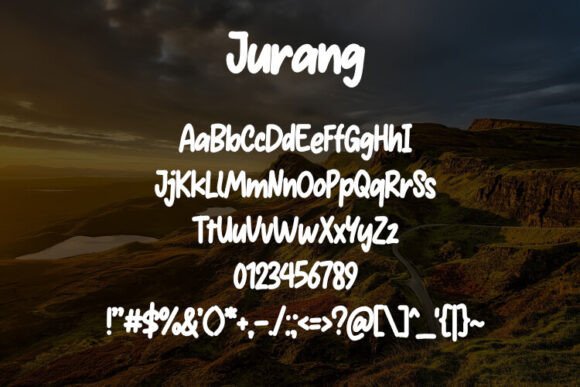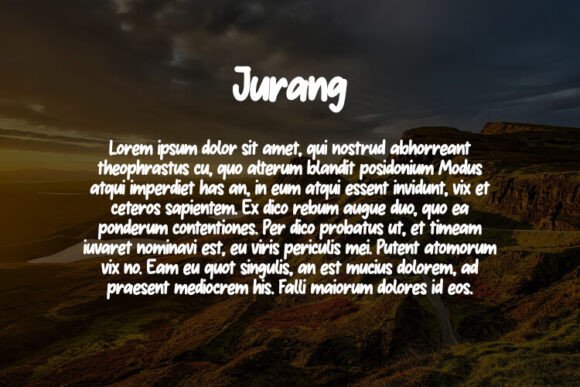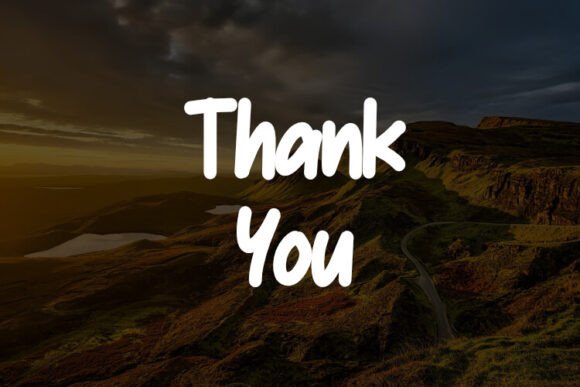
Introduction to Jurang Font
You’re staring at a blank design canvas, a blank slate waiting for your creativity to shine. The cursor blinks, taunting you to bring your vision to life. It’s moments like these that make us appreciate the right tools in our arsenal. That’s where “Jurang Font” comes in – a high-quality, adaptable typography that’s about to revolutionize your creative project.
This exceptional font is not just a pretty face; it’s a versatile design resource that effortlessly blends with any aesthetic, from modern to vintage. Whether you’re working on a t-shirt print or a logo, “Jurang Font” has got you covered. With its transparent background and seamless compatibility with various software, this font is a game-changer for designers. And the best part? It’s available for free download, making it an absolute must-have for any creative project.
So, why is “Jurang Font” so valuable for designers? It’s simple – this font embodies the pinnacle of design flexibility, making it the perfect addition to your design toolbox. With “Jurang Font,” you’ll be able to take your creative ventures to the next level, and that’s a promise we’re excited to keep.
Key Features of Jurang Font
- High-quality, unique font design perfect for creative projects
- Transparent background, allowing for easy layering and customization
- Designed to work well in various digital applications, including web design and print media
- Perfect for designers and artists looking for a distinctive, high-quality font for their creative projects
Honest Review: Jurang Font
I recently had the chance to work with the Jurang Font, and I must say it’s been a delightful experience. This free download has been a game-changer for my creative projects.
- High quality: The Jurang Font is beautifully crafted with clean lines and a unique style that adds a touch of elegance to any design.
- Transparent background: This feature makes it easy to work with the font in any design scenario, from logos to typography-based projects.
- ⚠️ Limited character set: The font only comes with a limited set of characters, which might not be suitable for projects that require a full alphabet.
- ⚠️ Limited font sizes: The font doesn’t scale well at larger sizes, which can make it difficult to use in certain design scenarios.
Overall, I’m really impressed with the Jurang Font. Its high quality and transparent background make it a great addition to any designer’s toolkit. While it has some limitations, I think it’s a valuable resource for designers working on creative projects.
Getting the Most Out of Jurang Font
Jurang Font is a free download, making it a great resource for any creative project. To get the most out of it, use it in conjunction with a transparent background to create a seamless design. You can also experiment with different font sizes and styles to add depth and interest to your project.
Jurang Font is a versatile font that can be used in a variety of creative projects, including logos, posters, and presentations. It’s also a great choice for social media graphics and blog posts. With its high-quality design and transparent background, it’s a must-have design resource for any creative project.
Comparison to Jurang Font: Alex Brush Font has a more refined and sophisticated feel, whereas Jurang Font is more playful and cursive.